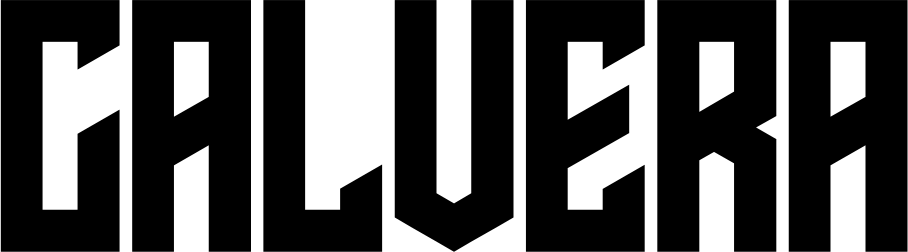
Calvera Font
Calvera font is ready to turn your simple design into a different futuristic and black letter design. If you have trouble designing a tattoo, be sure to use this block and bold font.
This block font does not support numbers, so if you decide to refer to numbers in the poster, it is better to use only the title or help from other tattoo fonts that complete your magnificent projects.